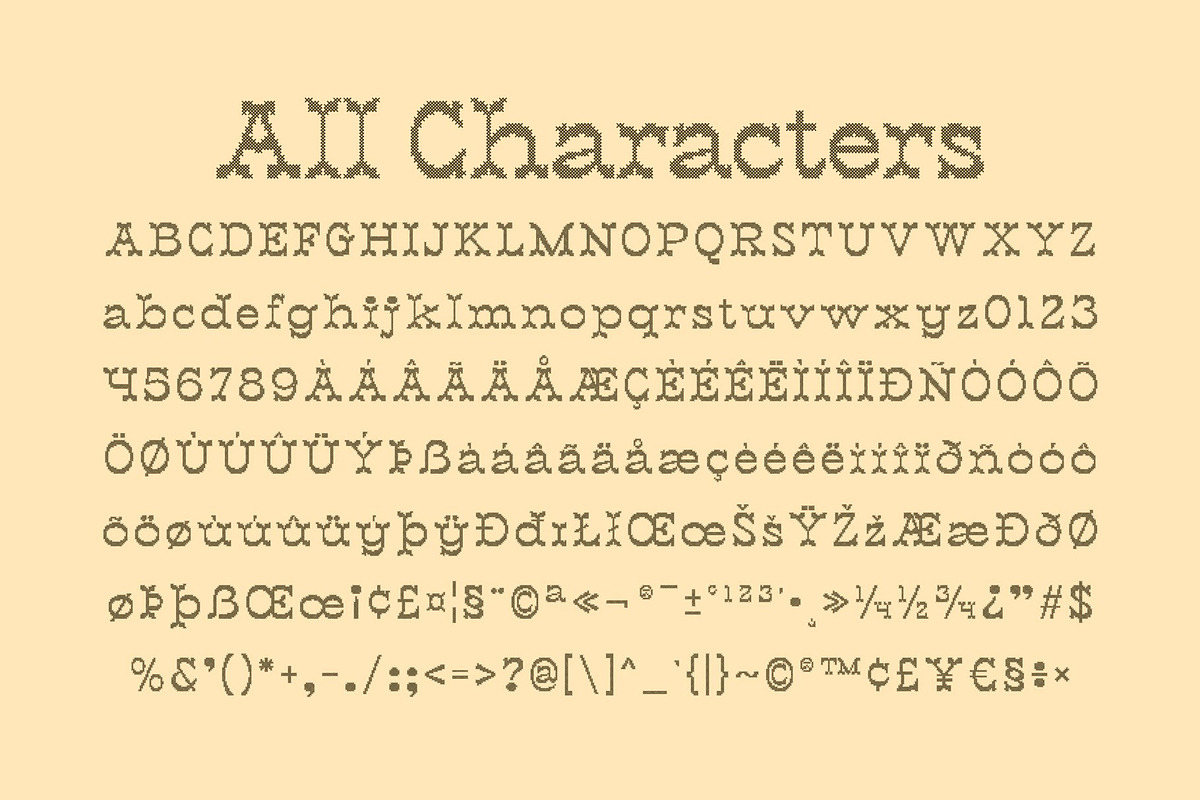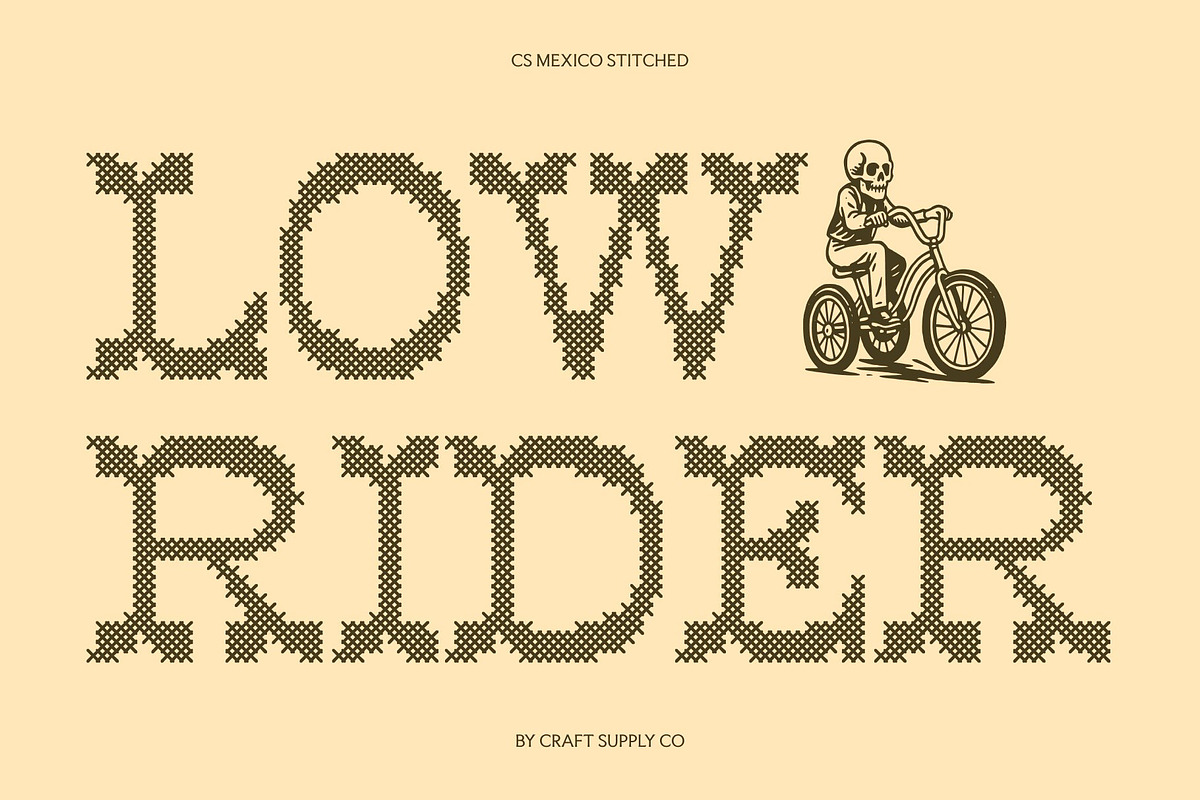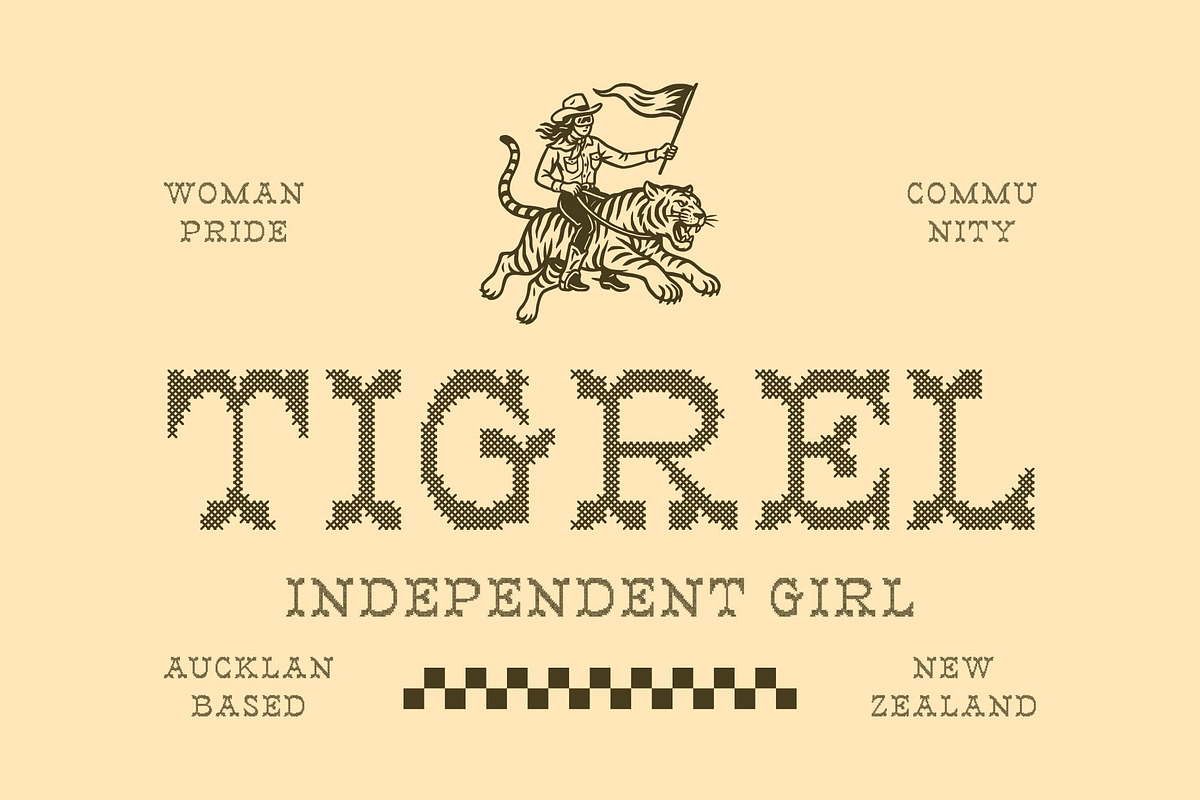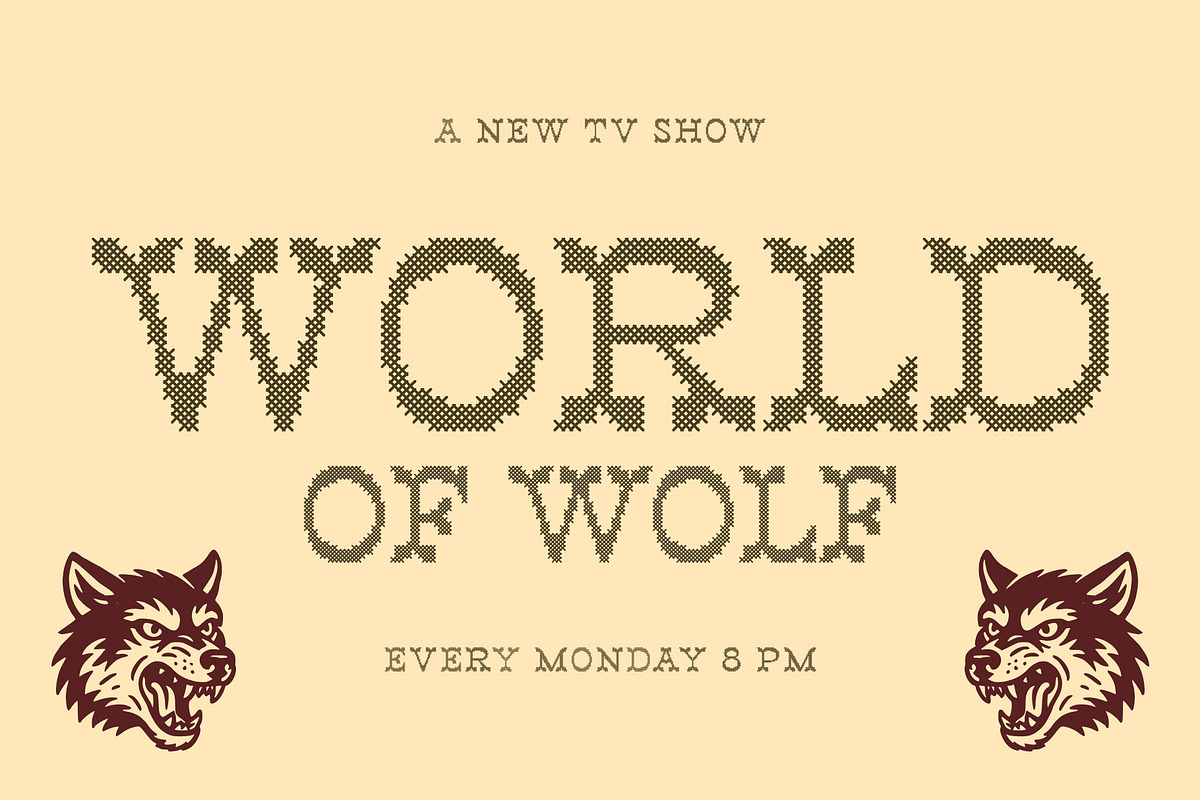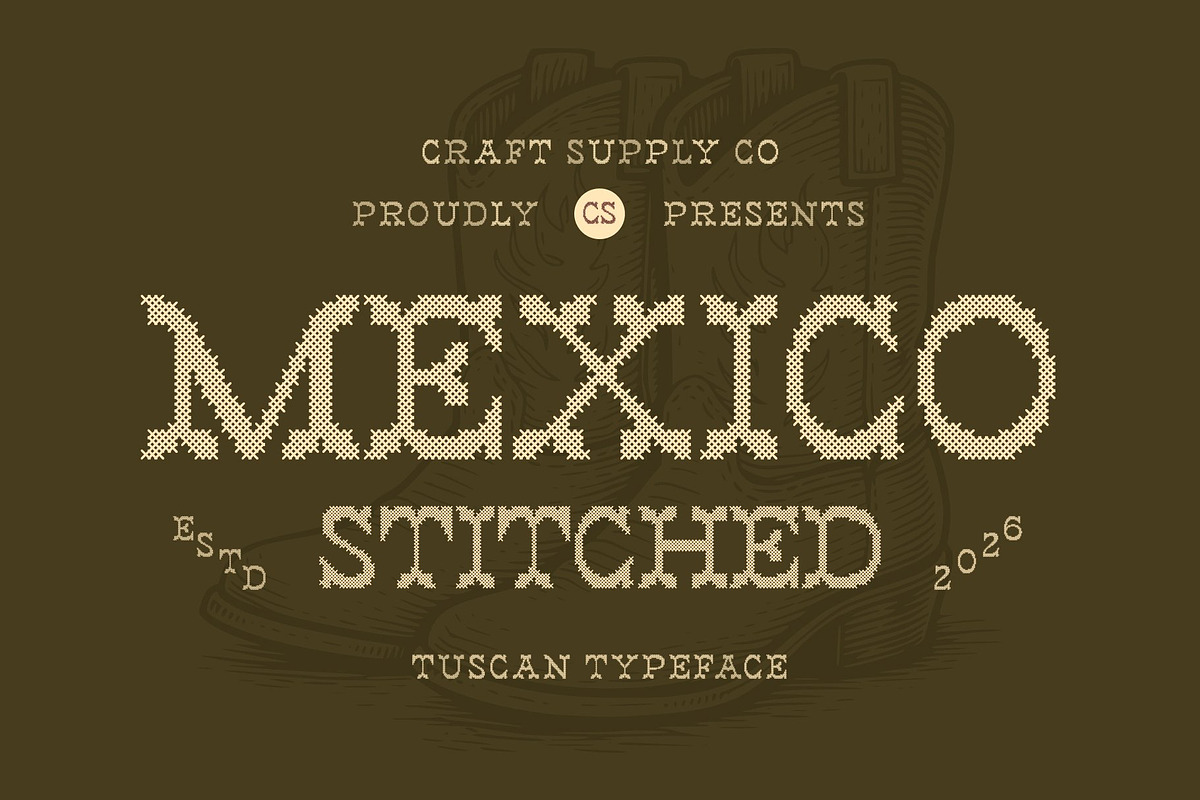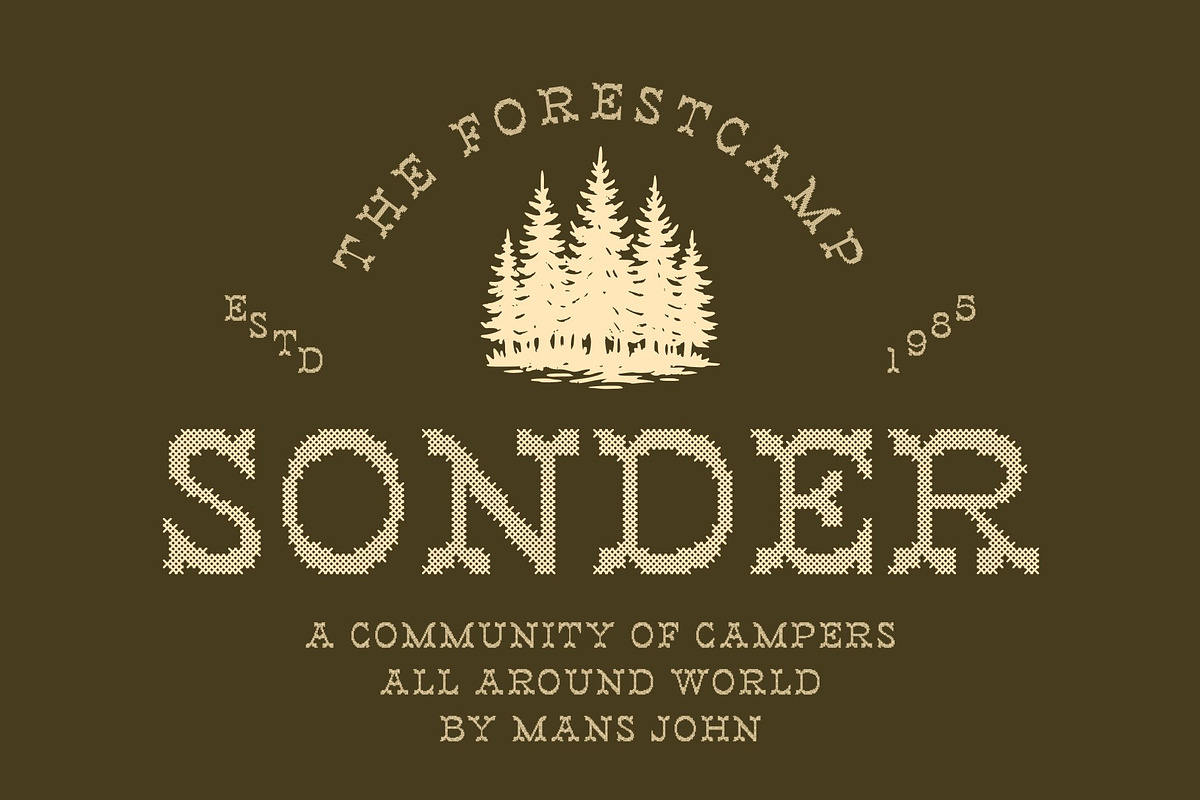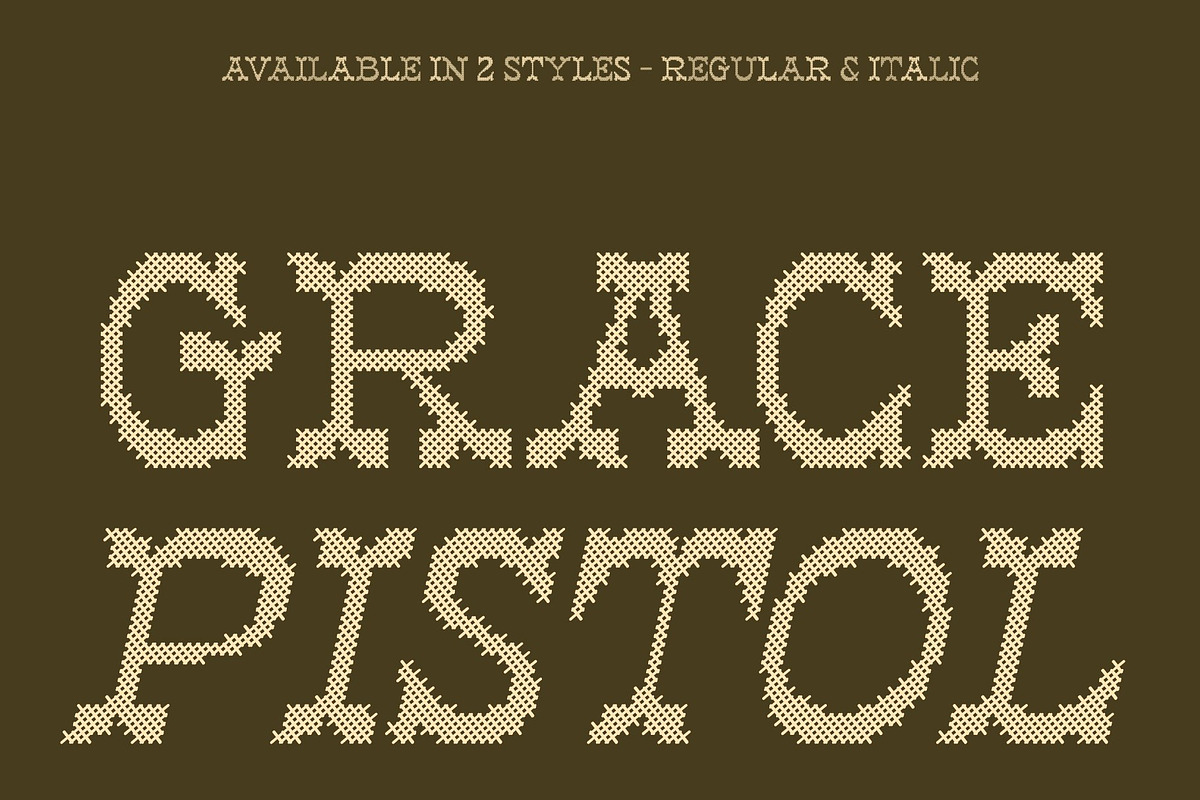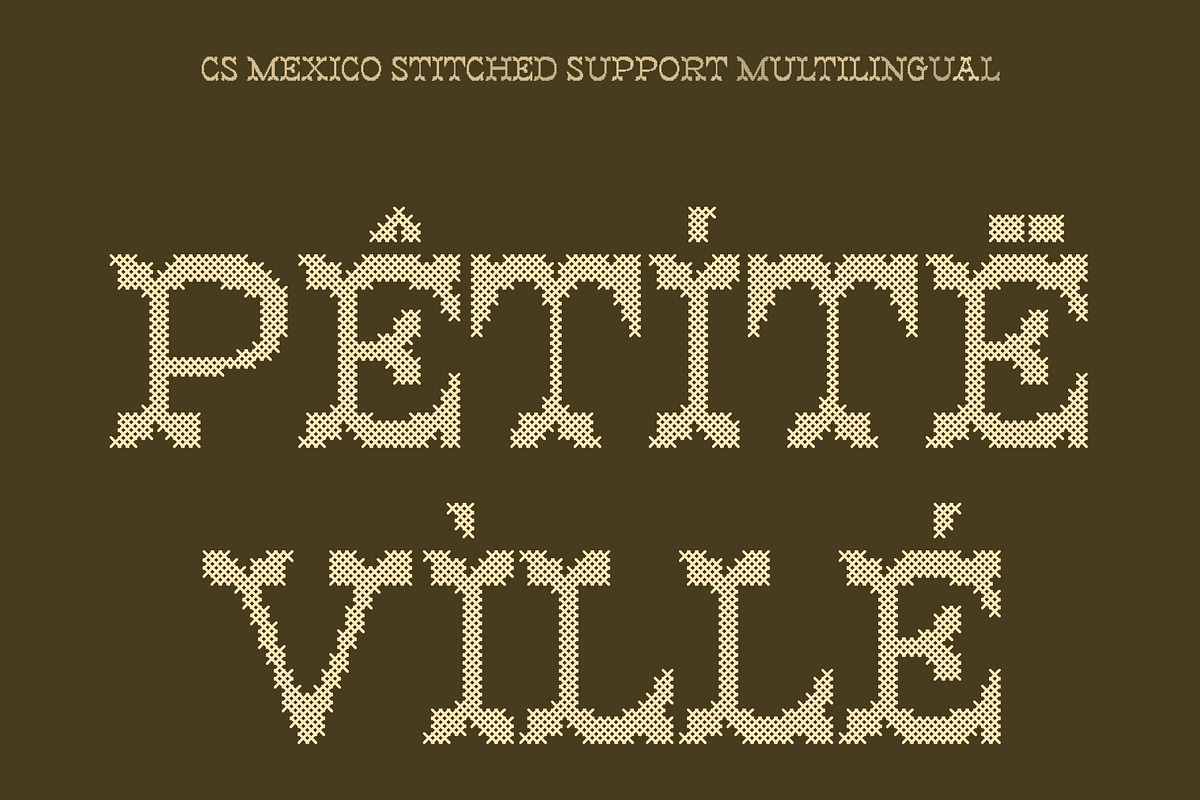
CS Mexico Stitched
CS Mexico Stitched – A Bold and Ornamental Tuscan Serif
A Classic Tuscan Display Font This is a striking Tuscan-style display serif inspired by traditional decorative typography known for its bifurcated serifs and rich ornamental details. The added stitched texture introduces a handcrafted feel, creating a warm and nostalgic character that blends vintage charm with tactile personality.
Dramatic and Expressive Aesthetic Featuring split serifs, flowing curves, and intricate accents, this font delivers a bold and unconventional presence. Its highly stylized letterforms capture attention instantly while maintaining readability, making it ideal for designs that aim to stand out with confidence and character.
Perfect for Posters, Branding, and Signage This font shines in posters, packaging, storefront signage, labels, and editorial layouts. Whether used for Western-inspired themes, retro branding, or heritage design, the font provides a distinctive visual voice that feels both classic and creative.
A Tribute to Vintage Lettering Rooted in 19th-century typographic traditions, this font revives the ornamental beauty of historical lettering while staying adaptable for modern design needs. It’s a perfect choice for projects seeking bold personality, decorative elegance, and timeless visual impact.